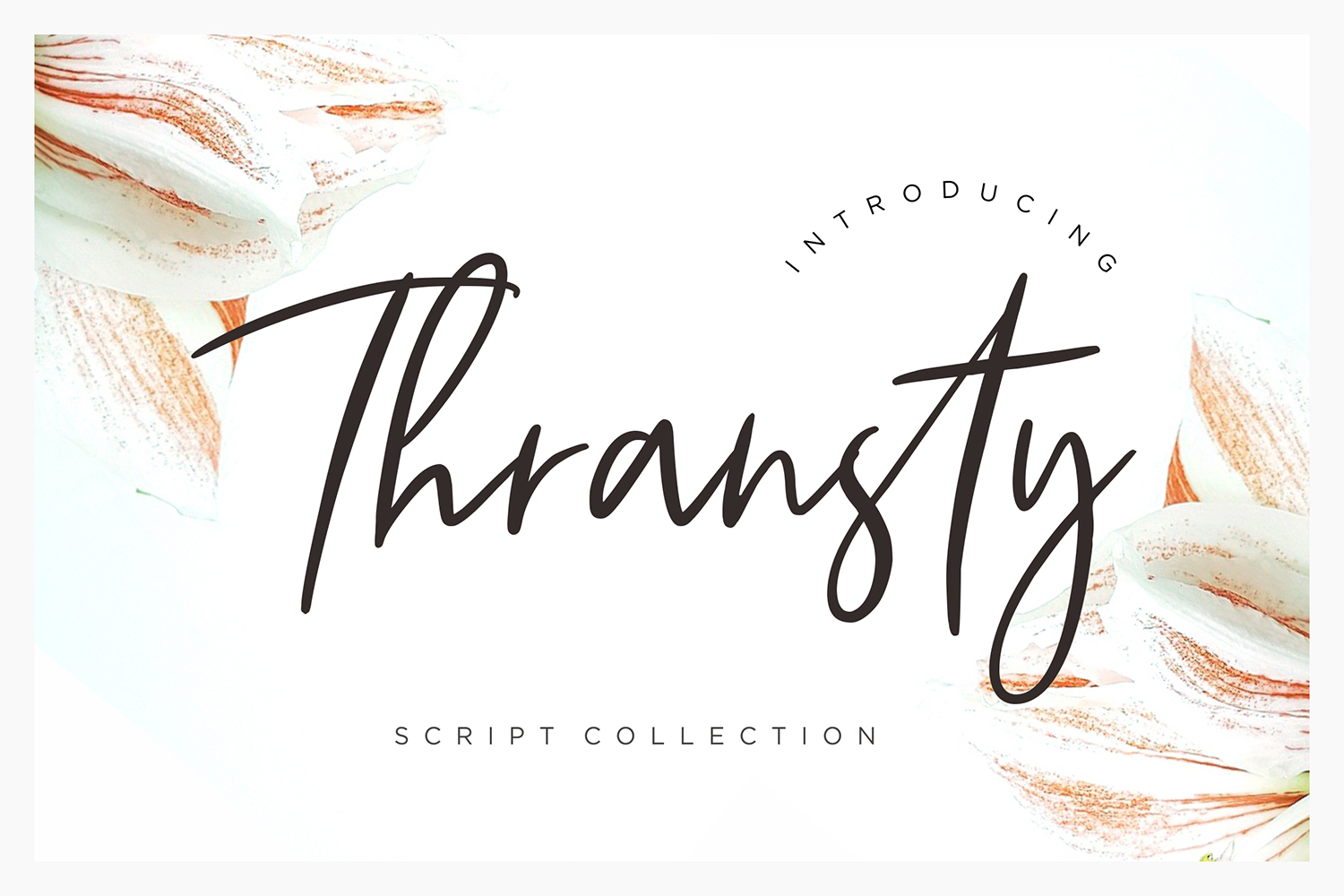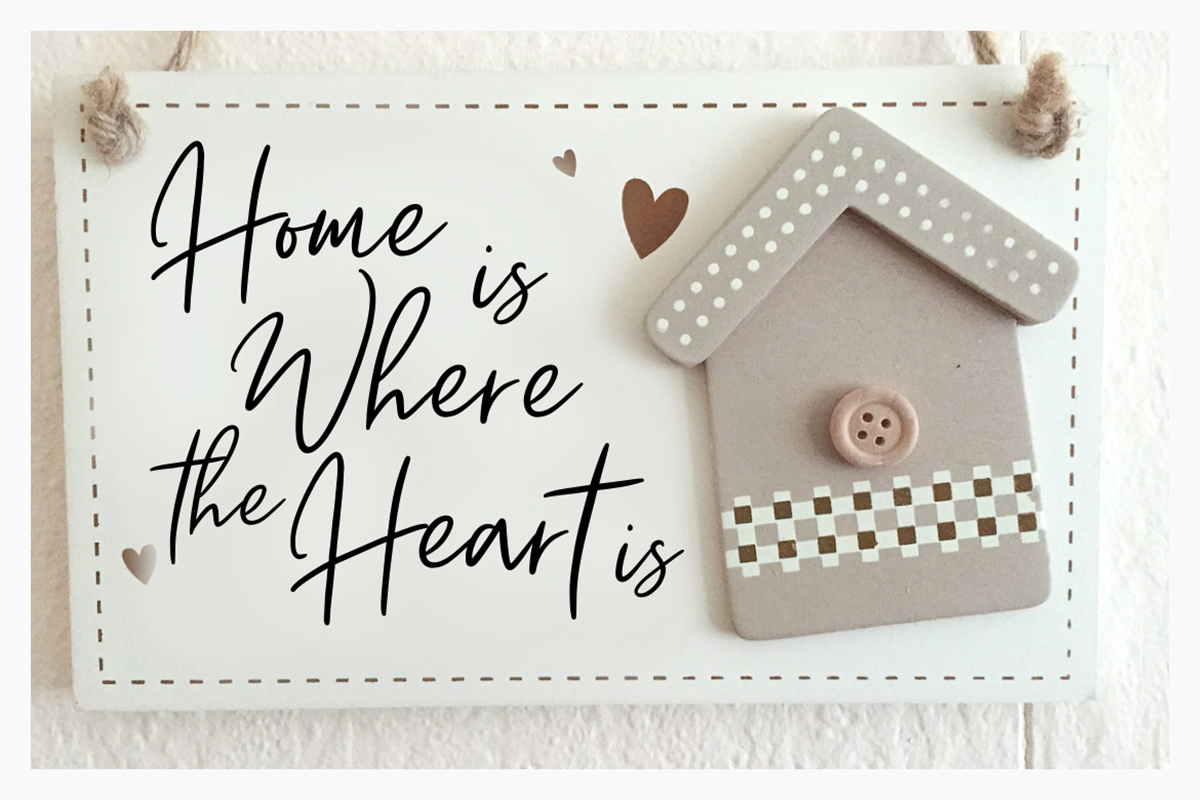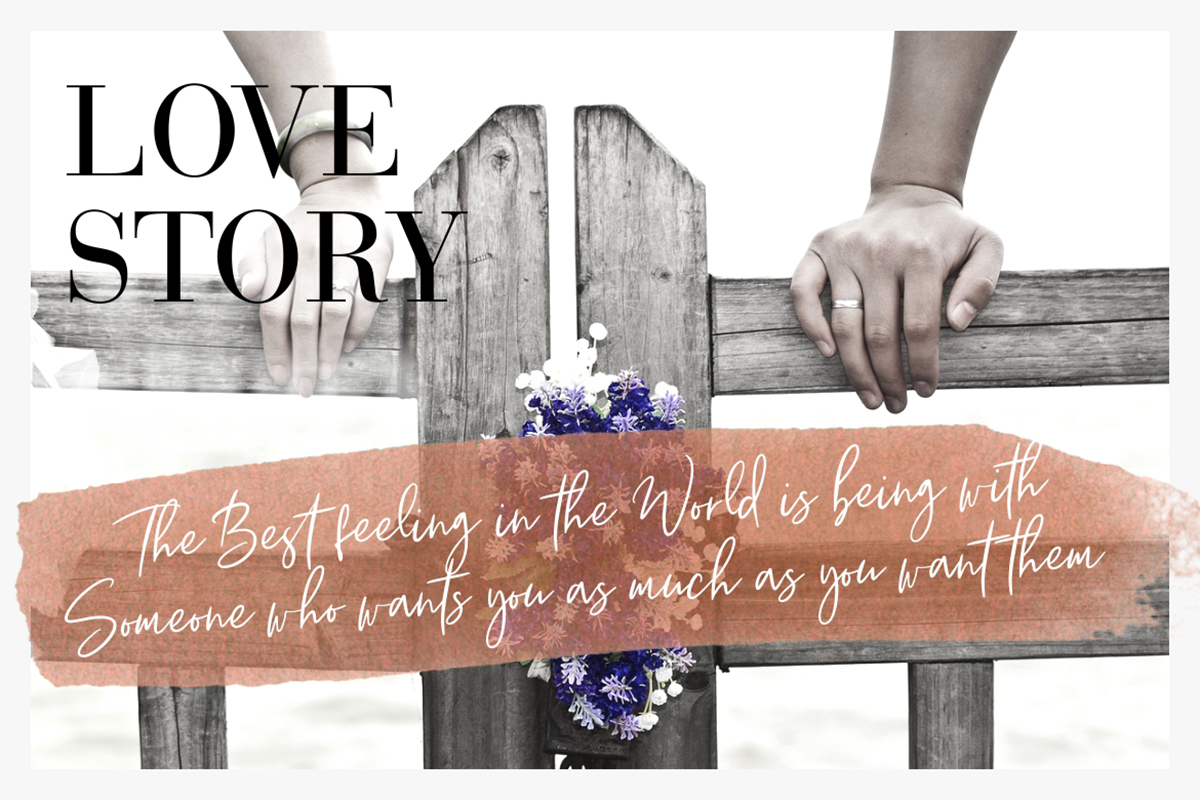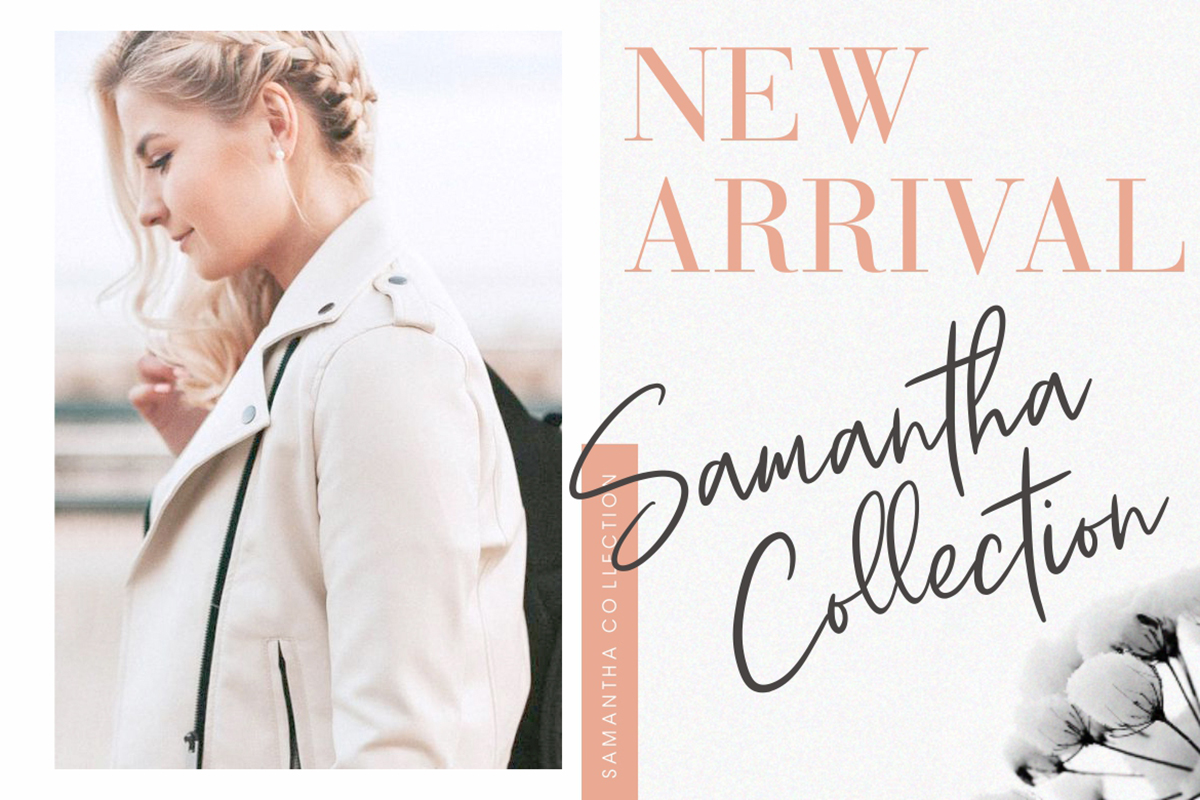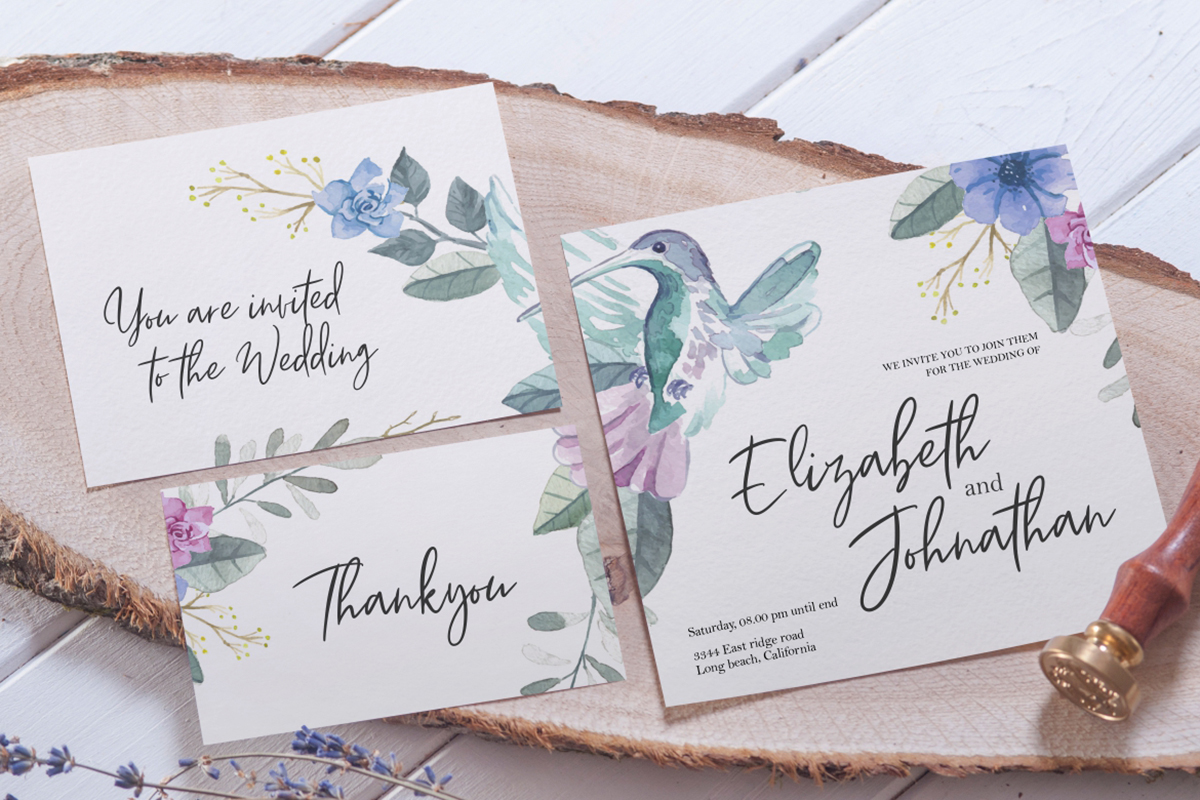
Thransty Free Font
Thransty Free Font is an interesting modern font with an elegant style. This font is very suitable for creating various design projects that require a scripted font. You can use this font to create memorable romantic posters, wedding invitations, greeting cards, branding, flyers, t-shirt and pillow prints, and more. If you like it don’t forget to check out the full version.